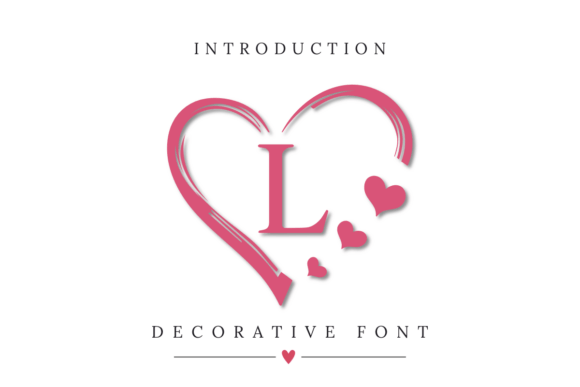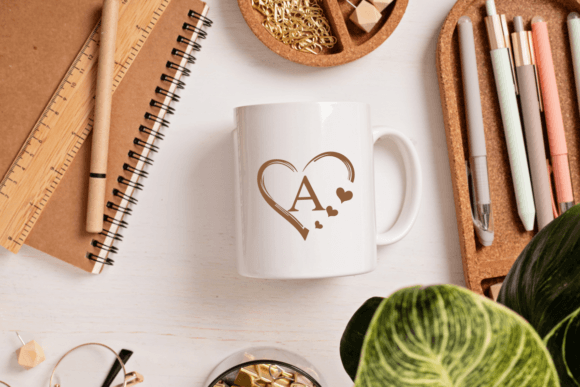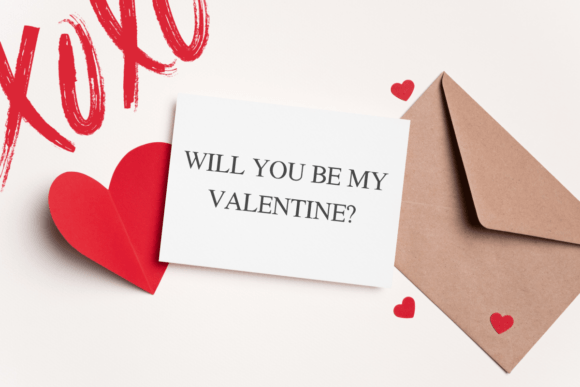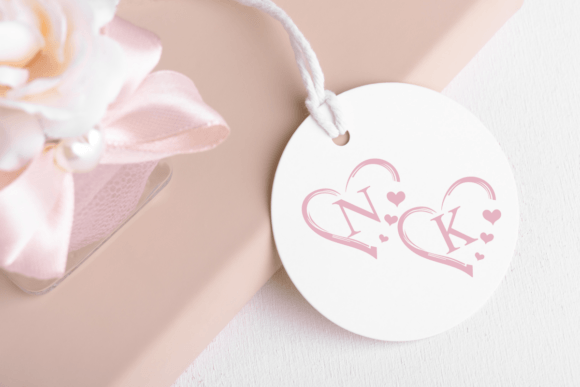
Cute Heart Monogram Font
About the Cute Heart Monogram Font
Let us introduce you to Cute Heart Monogram Font, where timeless design meets modern craftsmanship. Cute Heart Monogram is a gorgeous decorative font. You can use it for taking notes, writing a diary, or making greeting cards. However, you can still use it for other designs, such as banners, content, mugs, cards, shirts, stationery, social media posts, and more!
This font’s playful, romantic style is ideal for projects requiring a touch of whimsy. It excels in headlines, logos for boutiques or cafes, short social media captions, and packaging for feminine products or gifts. Avoid using it for body text or lengthy content; its decorative nature hinders readability in larger blocks.
Cute Heart Monogram pairs well with clean sans-serif fonts like Open Sans for a balanced contrast, or a delicate script font such as Pacifico for a more cohesive, romantic feel. For a more modern approach, consider pairing it with a geometric sans-serif like Montserrat.
Its core personality is undeniably charming and approachable, making it perfect for brands targeting a young, feminine audience. However, its decorative style might not suit serious or corporate applications.
Cute Heart Monogram Font Usage Examples
Cute Heart Monogram Font Example